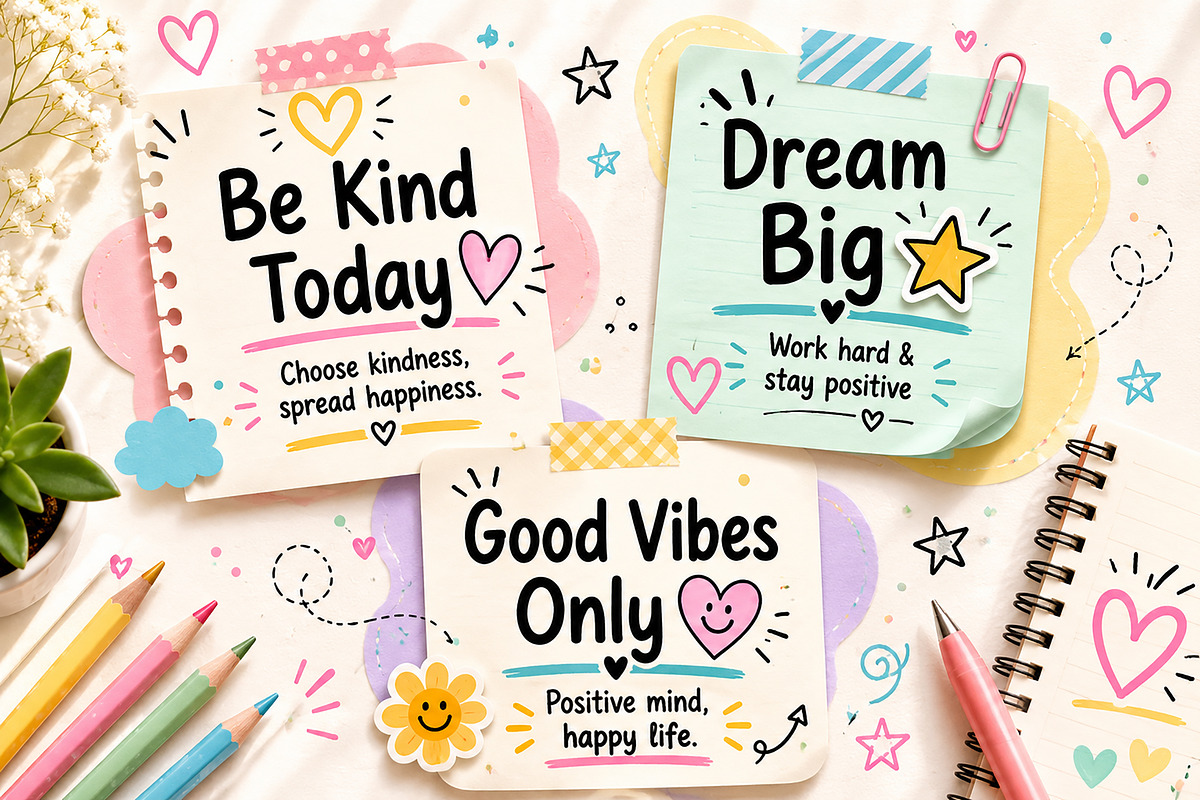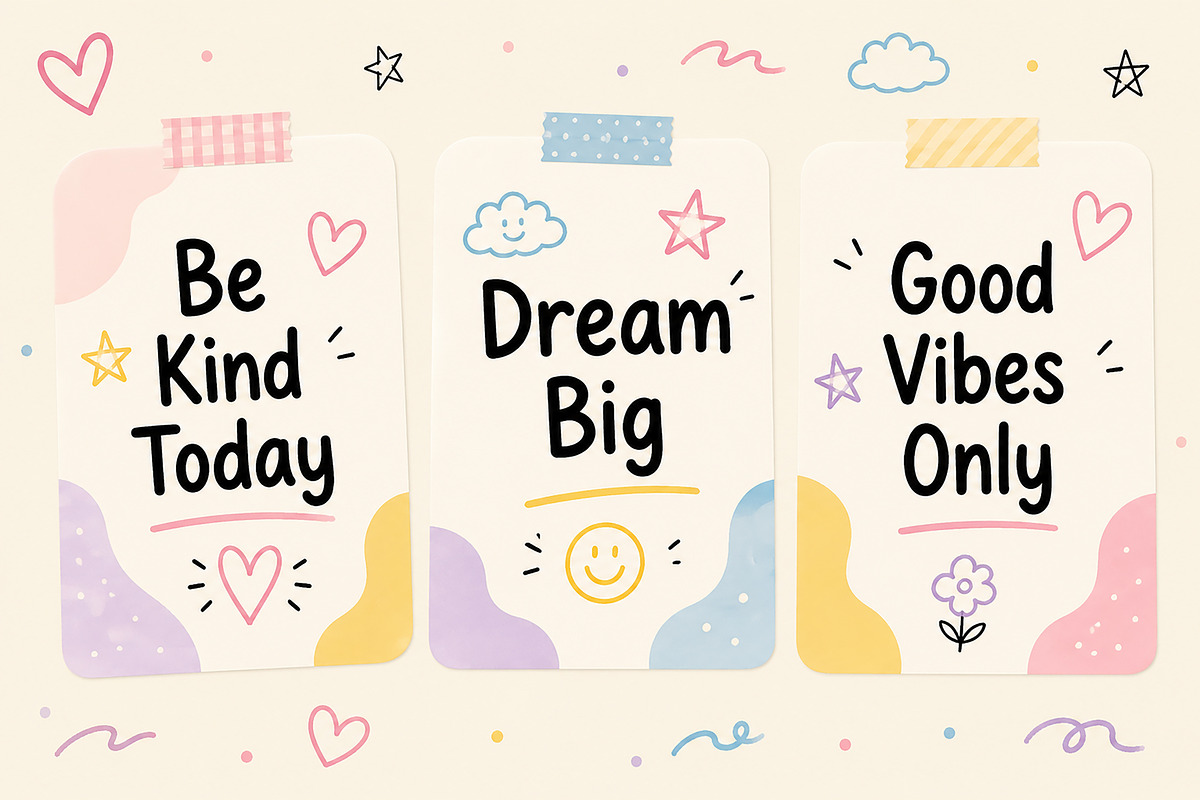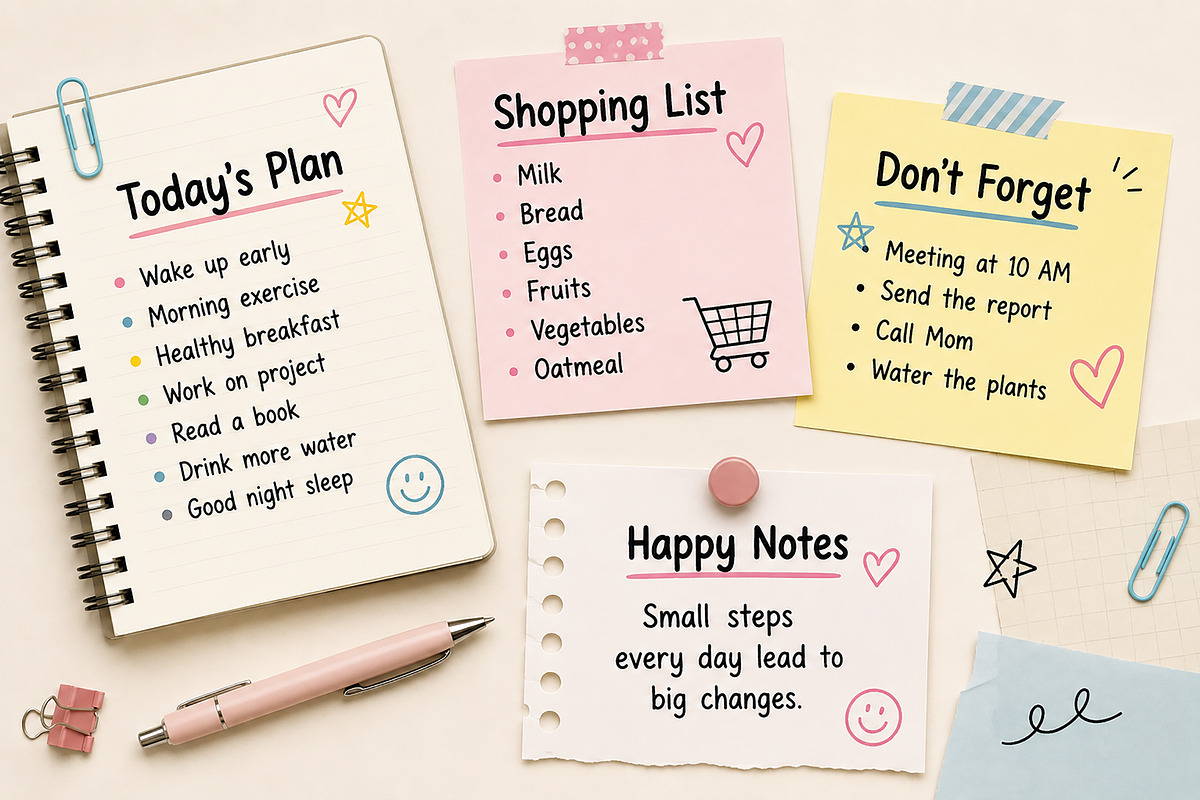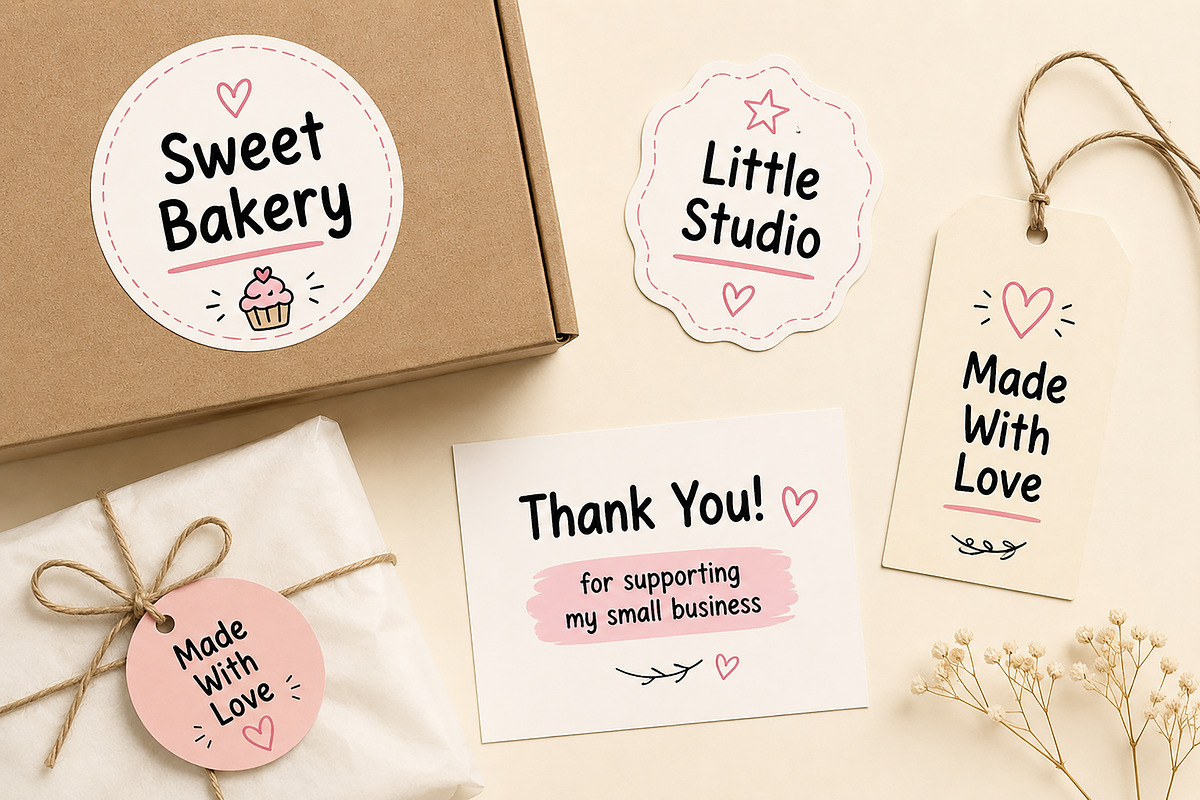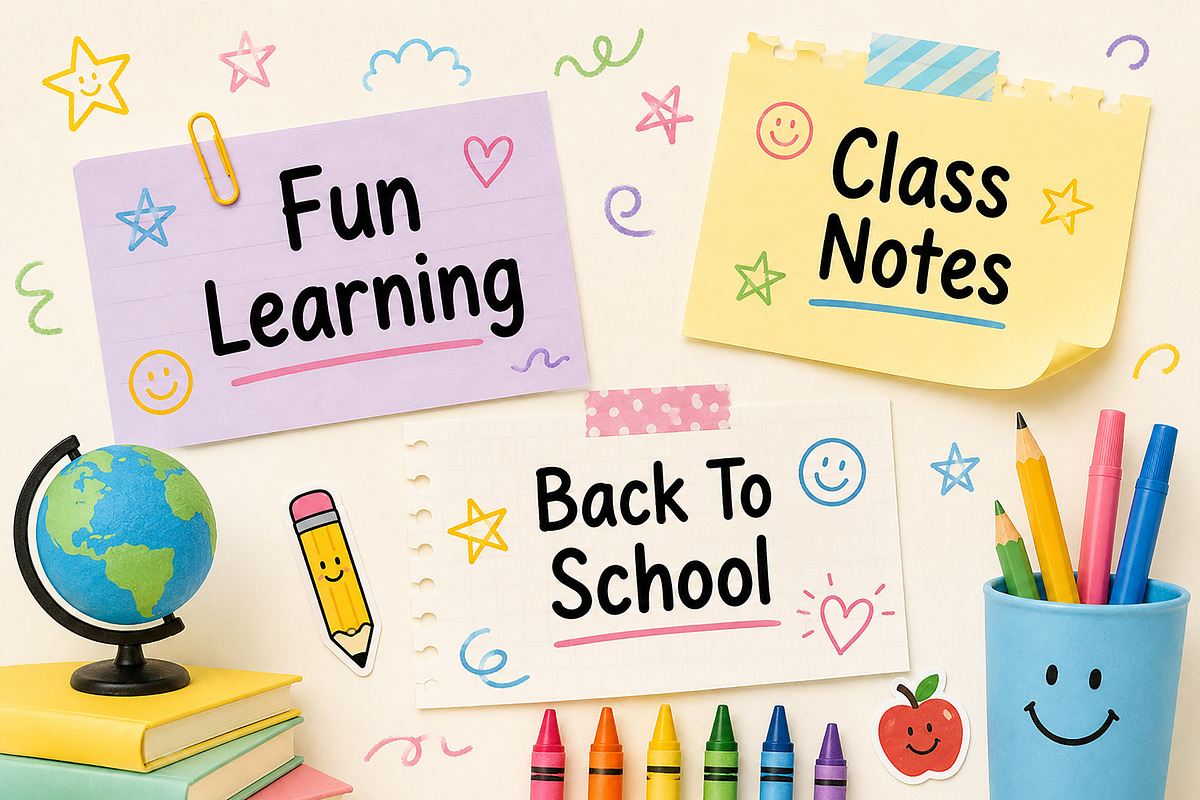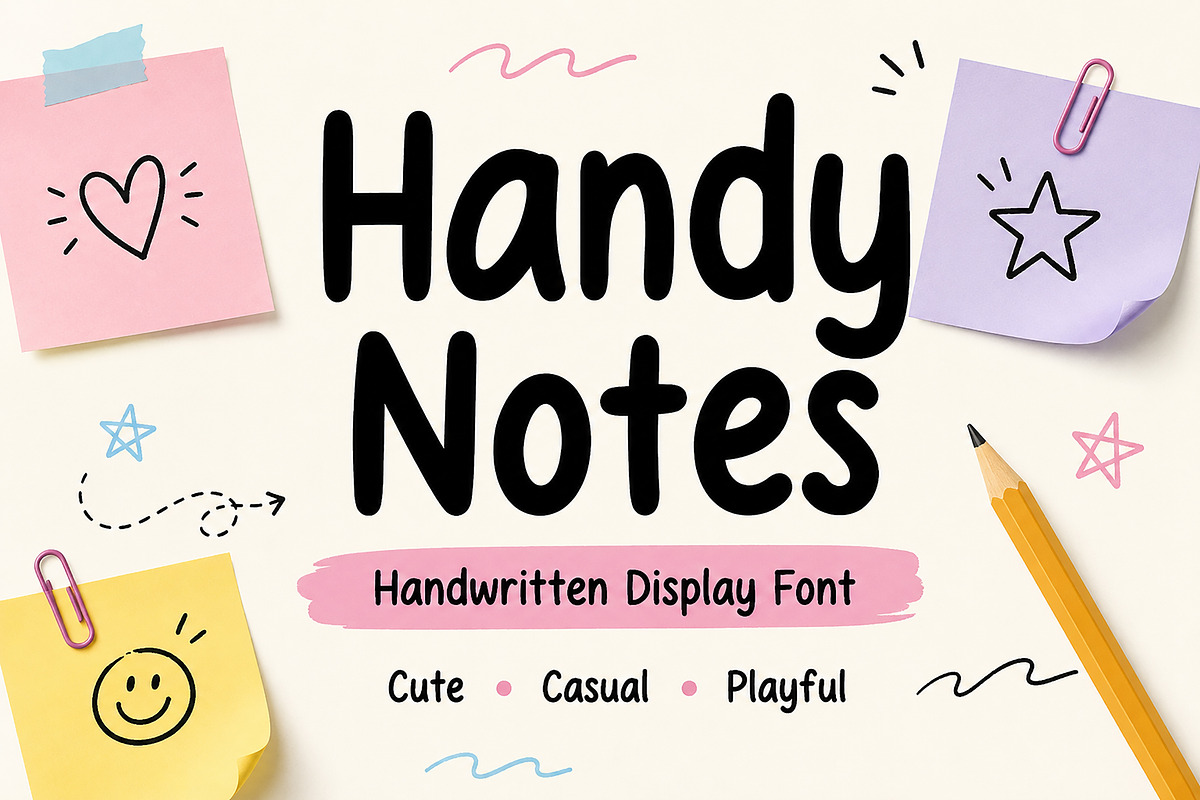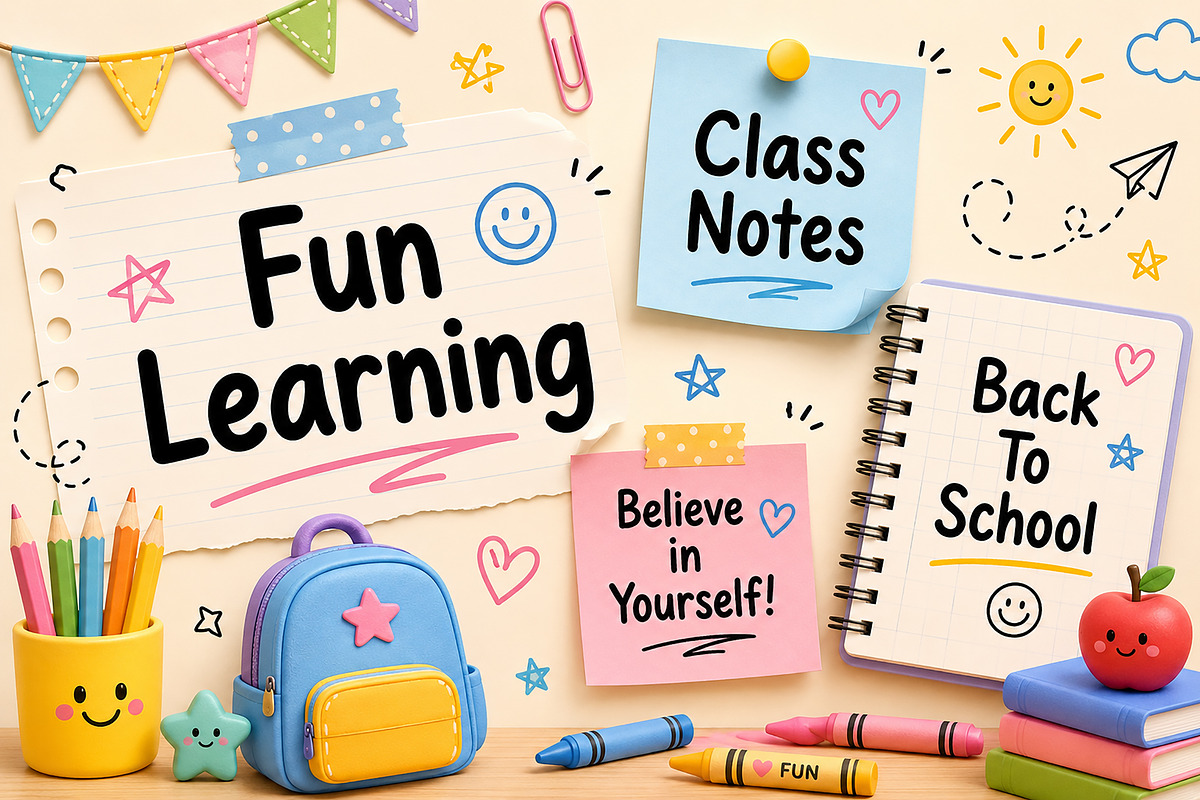
Handy Notes
Handy Notes – Cute Handwritten Display Font
Bring warmth, personality, and creativity to your designs with Handy Notes, a playful handwritten display font inspired by everyday notes, journals, planners, and doodles. Designed with smooth, rounded letterforms and a friendly handwritten feel, this font is perfect for creating charming designs that instantly feel personal and approachable.
Whether you're designing stickers, planners, greeting cards, classroom resources, social media graphics, packaging, or handmade product branding, Handy Notes adds a fun and authentic touch to every project.
Its clean handwritten style makes it easy to read while maintaining a natural, hand-drawn appearance—perfect for both digital and print designs.
Planner & Journal Designs
Stickers & Labels
Greeting Cards
Instagram & Pinterest Quotes
Handmade Product Packaging
Thank You Cards
Kids & Classroom Projects
Scrapbooking
Cricut & Silhouette Projects
Branding & Logos
T-Shirts & Merchandise
Invitations
Printable Designs
DIY Crafts
Cute Handwritten Style
Smooth Rounded Letterforms
Clean & Highly Readable
Friendly Casual Appearance